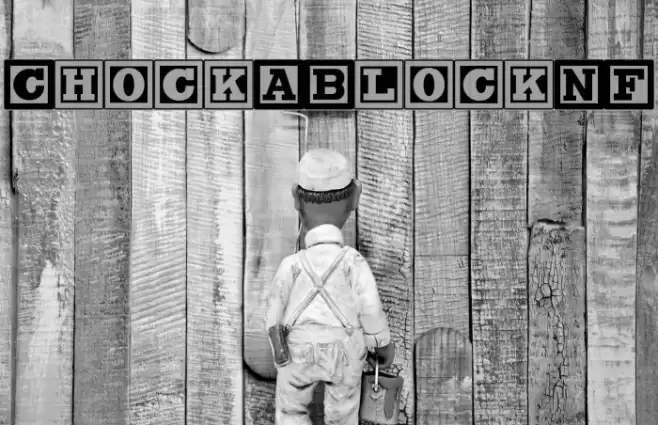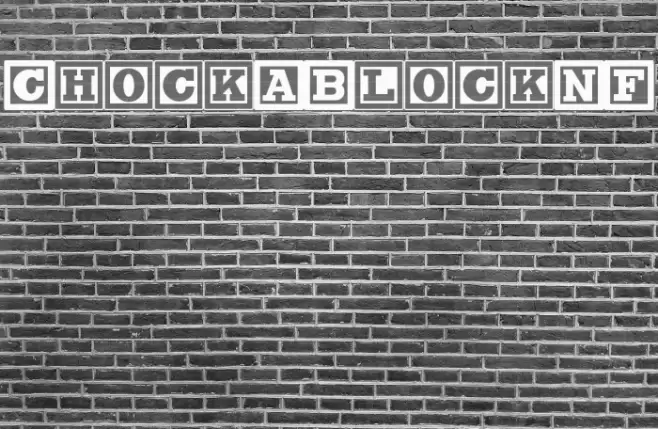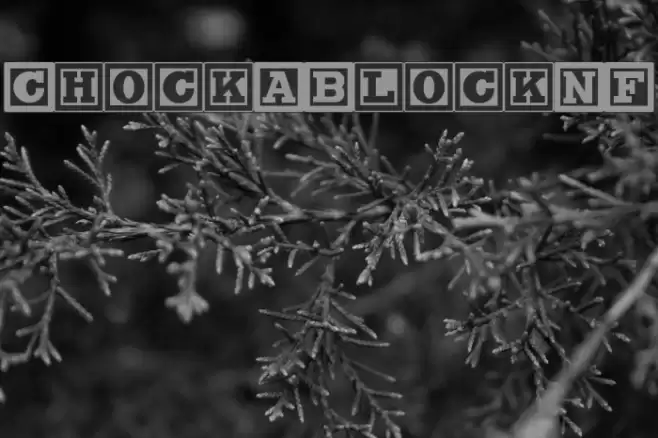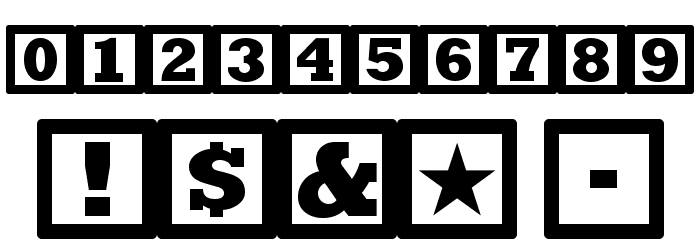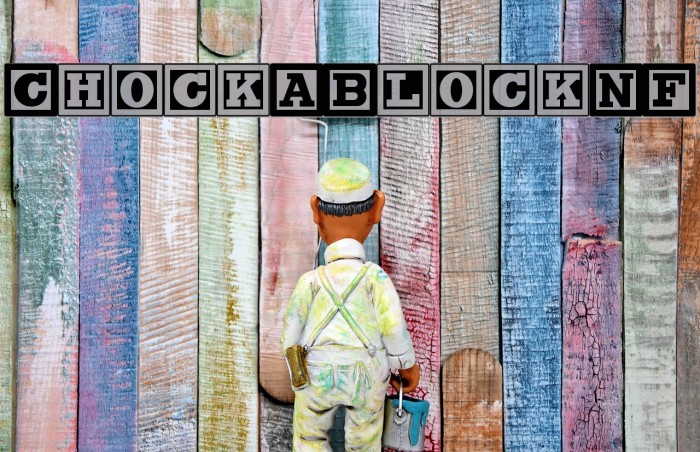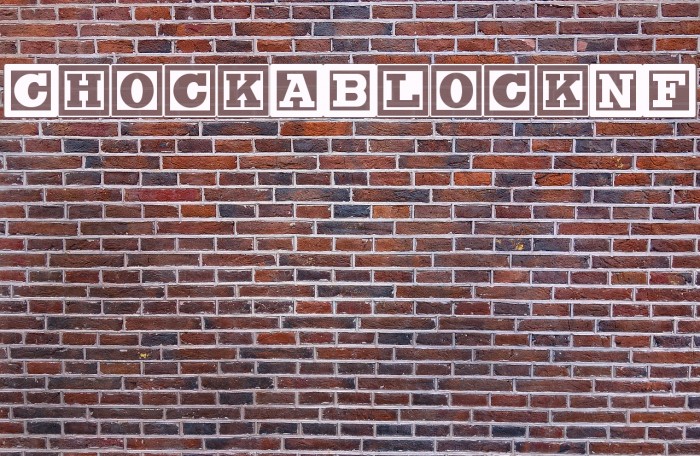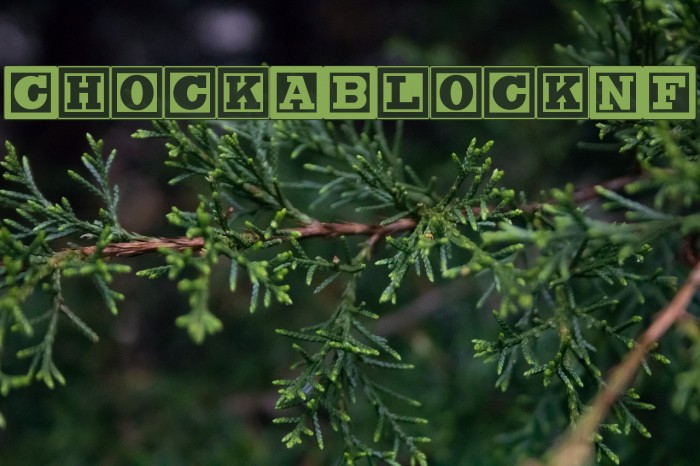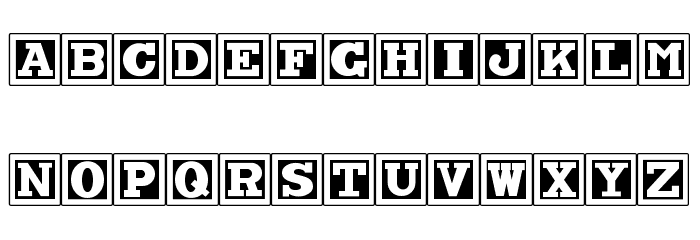
ChockABlockNF Font
ChockABlockNF Description
This font features bold, uppercase letters enclosed in square frames, creating a striking and impactful appearance. The characters are uniformly spaced and have a consistent weight, contributing to a strong visual presence. The design is reminiscent of vintage signage, with a modern twist that makes it suitable for contemporary applications. The numerals and special characters follow the same boxed style, ensuring a cohesive look across all elements. This font's unique boxed design makes it stand out, offering a playful yet structured aesthetic.
Bold, boxed uppercase font with a vintage-modern style from Images & Symbols fonts.
- Proposed Projects: Ideal for poster designs, branding projects, and any creative work that requires a bold statement. It can also be used for packaging, signage, and editorial design where a distinctive look is desired.
- Overall Style: Vintage, Modern